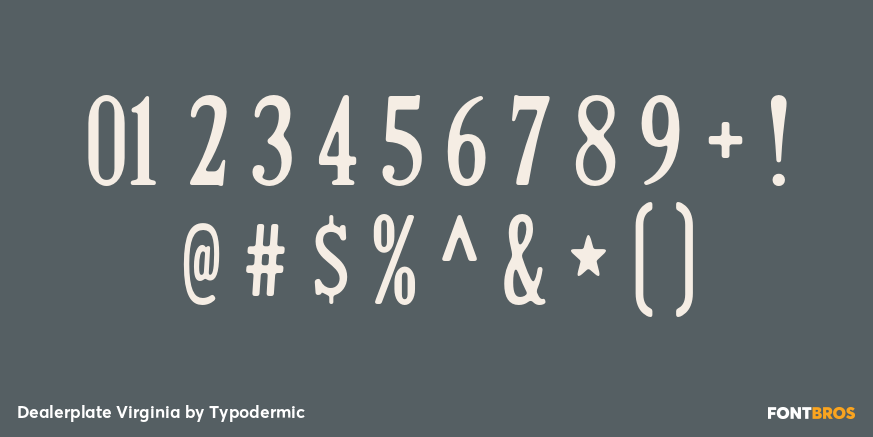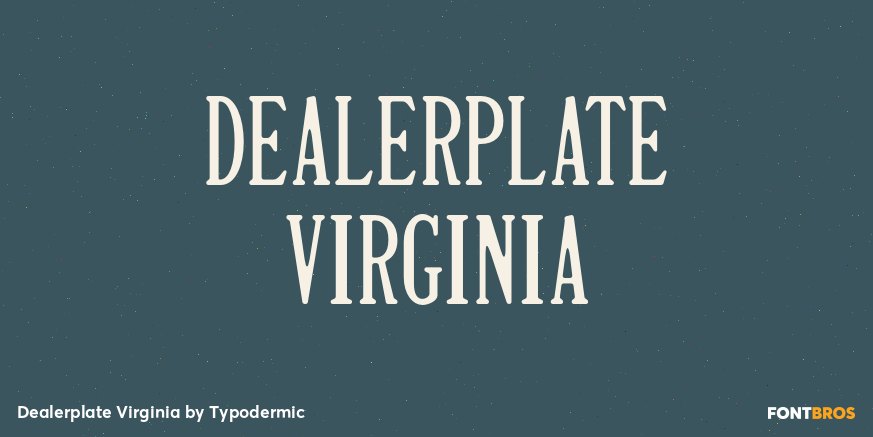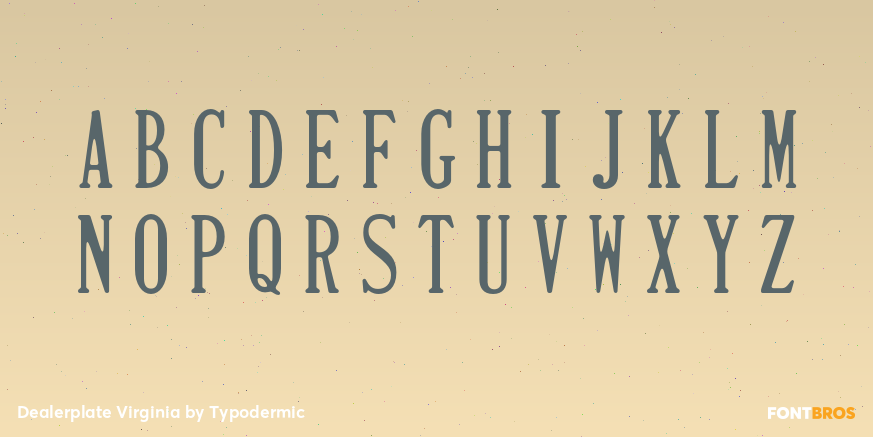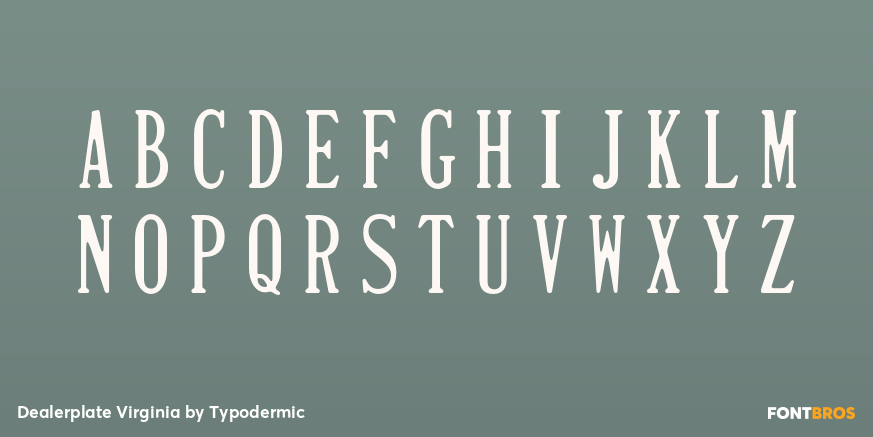
Dealerplate Virginia
Dealerplate Virginia develops Virginia-inspired license-plate lettering into a complete alphabet for regional props and vehicle graphics. It provides enough characters for invented registrations and related text while keeping the typography anchored to a Virginia setting rather than an anonymous North American road world.
Use it for Mid-Atlantic crime stories, historical or contemporary road scenes, police-procedural props, driving games, virtual-production traffic, evidence photography, impound documents, parking permits, and dealership inserts. It can extend a hero plate's look into case-file labels, registration graphics, garage signs, or vehicle menus, helping the regional cue remain consistent throughout a production.